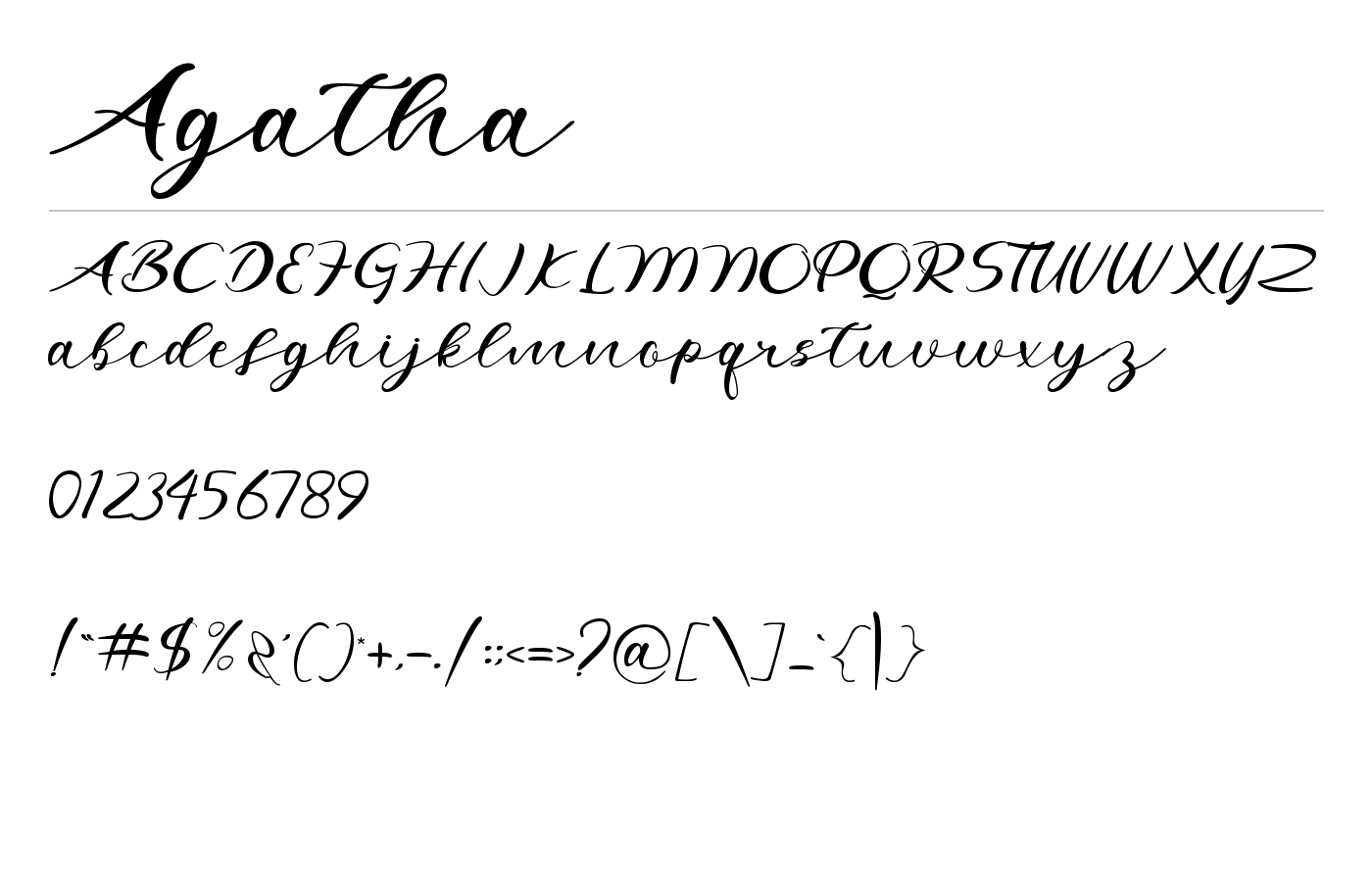
Agatha is an elegant script font characterized by its smooth, flowing strokes and delicate, calligraphic style. Its moderate contrast and refined curves give it a graceful, sophisticated feel, making it ideal for invitations, branding, and any design needing a touch of classic charm and personal warmth. This font works especially well in headlines and decorative text where its airy yet polished form can shine.
Agatha Font
About Agatha Font